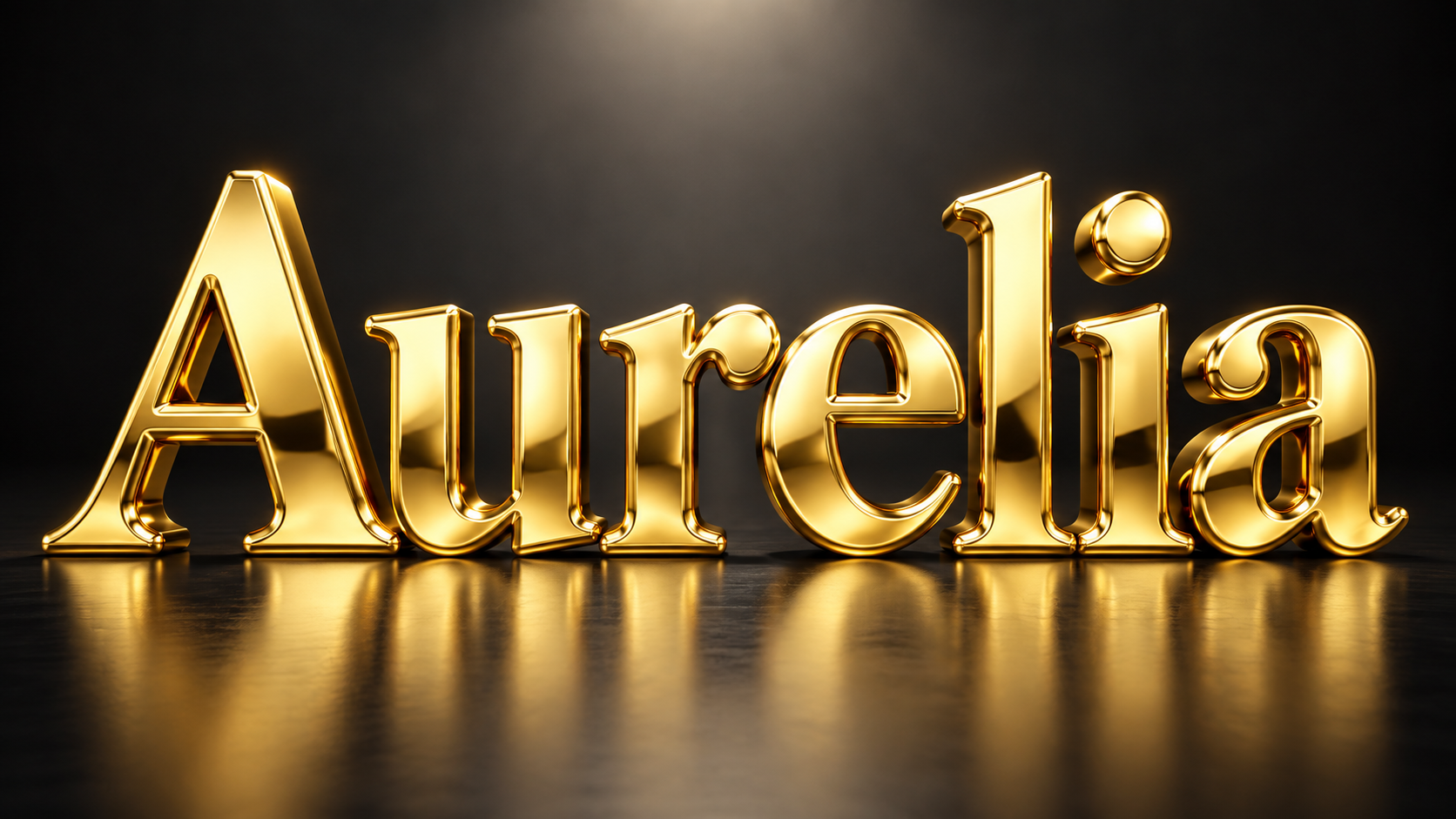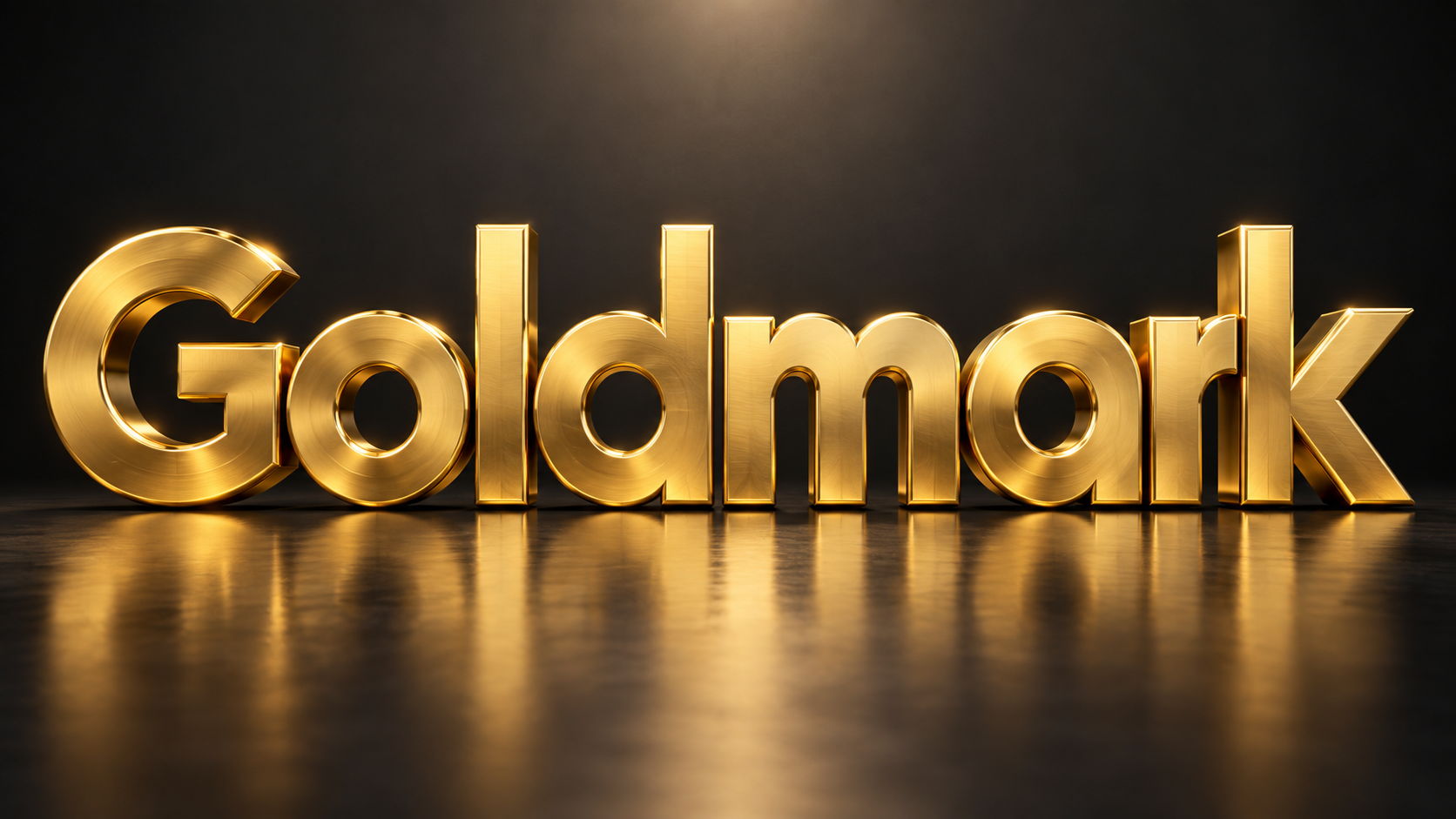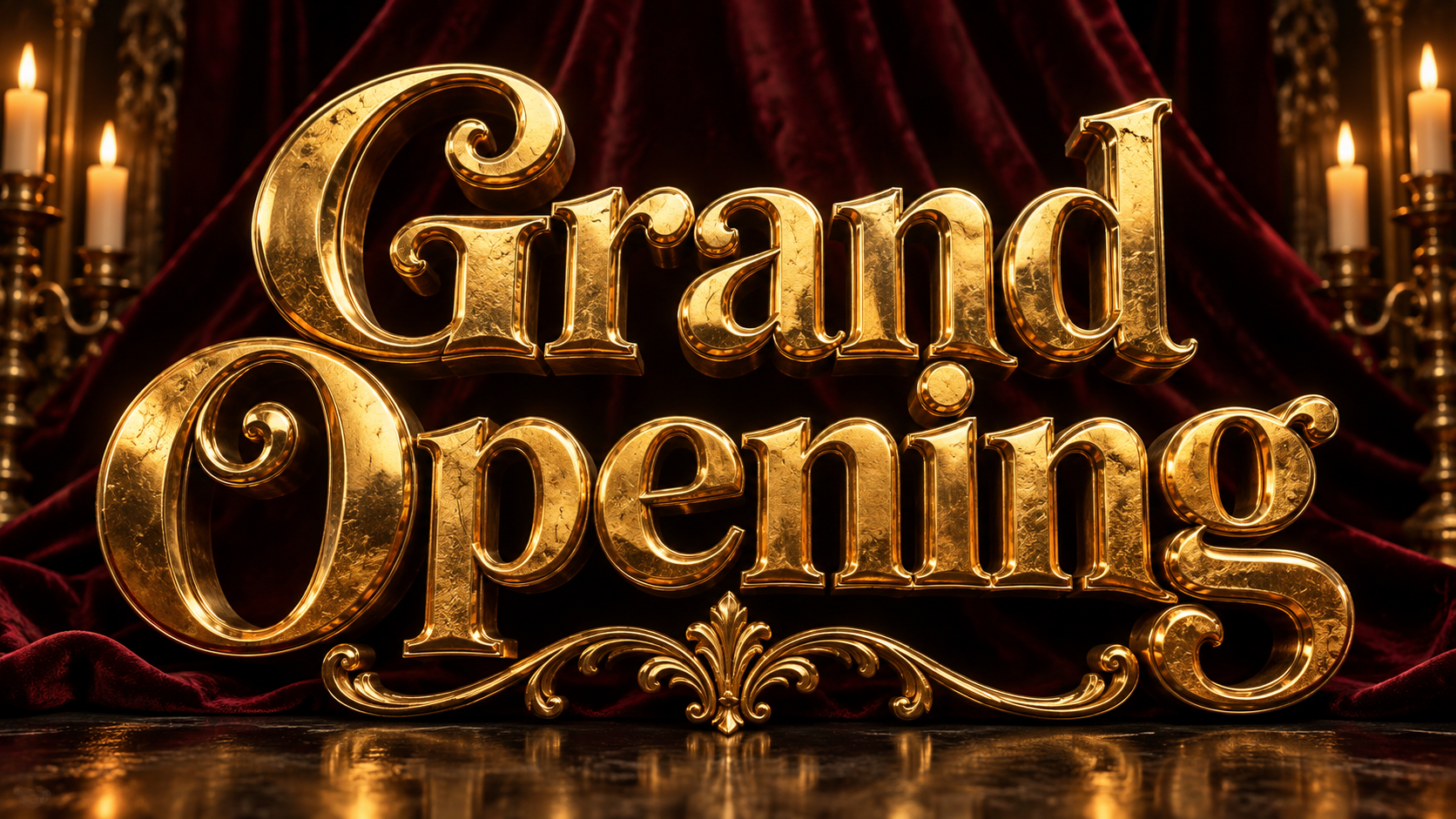
Solid, polished, three-dimensional gold. Beveled letters with warm reflections and real weight.
flawless mirror-polished gold, crisp bevels, bright specular highlights, elegant serif letterforms
The Fontique gold font generator produces letters that look cast from solid gold: thick 3D forms with beveled edges, warm yellow highlights rolling into deep amber shadows, and reflections that suggest a real studio environment. It is gold as an object, not a yellow gradient, and that depth is what makes a gold text effect read as luxurious rather than cheap.
Presets cover the range of gold finishes. Polished gives a mirror shine, Brushed adds fine directional grain, Antique darkens the recesses, Rose Gold shifts the tone pink, and Gold Leaf breaks the surface into hammered foil. Each one works with serif, script, or blocky lettering.
Gold lettering is a staple for wedding invitations, luxury brand logos, award graphics, jewelry packaging, and premium YouTube channel art. Quick generation downloads as JPG. Choose Standard and PNG in the studio for a PNG of the complete gold lettering composition. As a gold text generator it covers both ends of the look: Gold Leaf for flat, elegant lettering and Polished for heavy 3D bars that catch the light.
It is rendered as a three-dimensional object. The generator gives the letters thickness, beveled edges, and environment reflections, so highlights and shadows fall the way they would on real cast gold. Flat gradients cannot reproduce that depth, which is why AI gold looks convincing.
Polished with a script or serif letterform gives the classic look, while Rose Gold suits softer palettes with blush and ivory. Use the finished image as a panel in your card design, and keep names or dates short for the cleanest bevels. The generated background stays in the file.